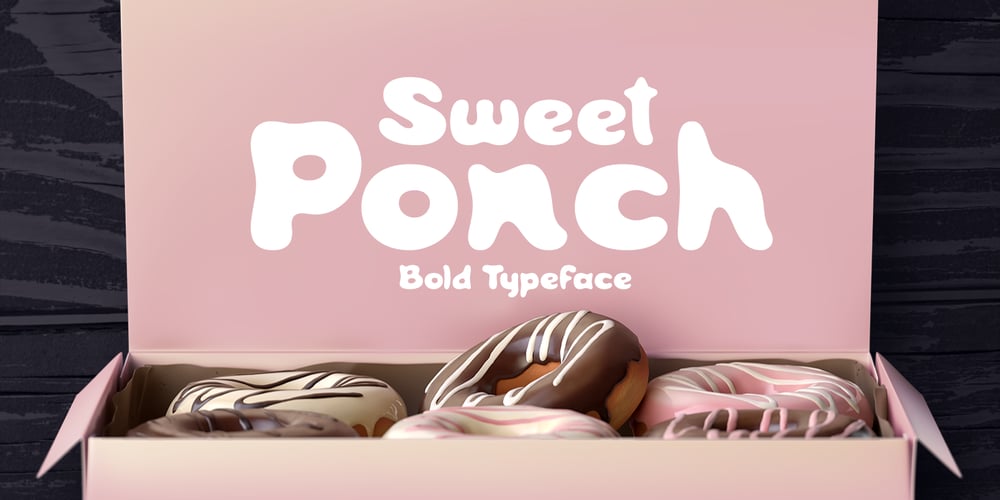
Sweet Ponch Font Family was designed by Gleb Guralnyk and published by Gleb Guralnyk. Sweet Ponch contains 1 styles and family package options. Hi, introducing a bold smooth font Sweet Ponch. It has a rounded simple shape in a childish funny style. It’s perfect for various food packaging, logo design and lettering compositions. Ponch font has a west european multilingual support, check out a screenshot with all available characters.Thank you and have a nice day!